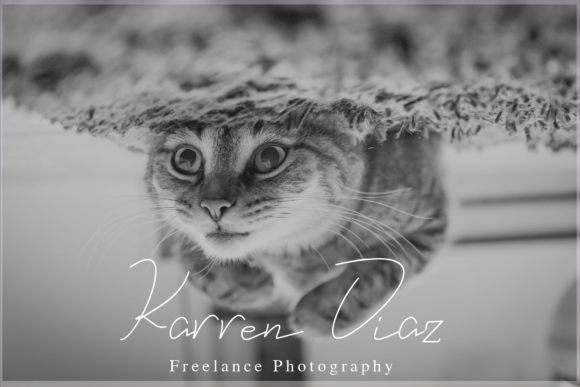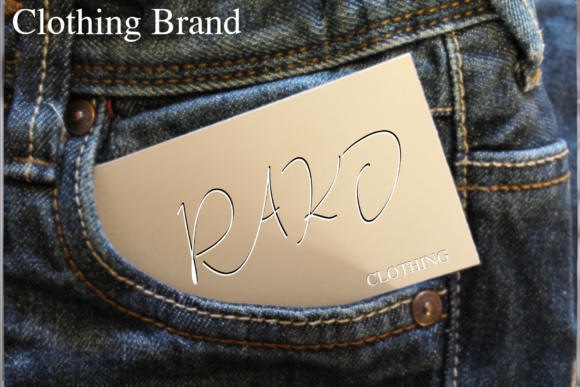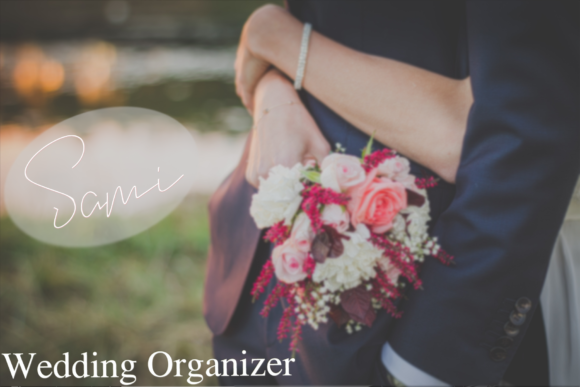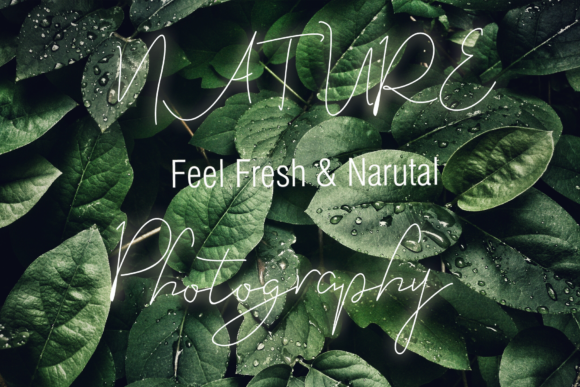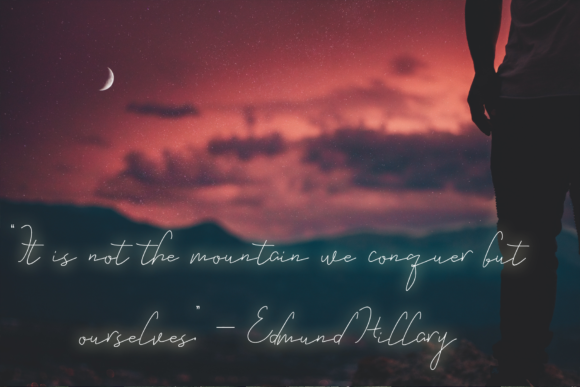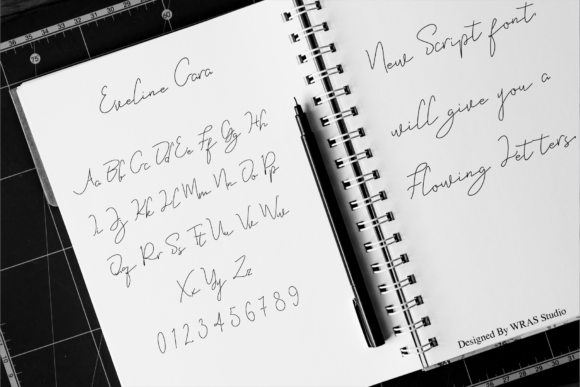
Eveline Cara Font: Elevate Your Designs with Elegant Handwritten Style
Are you tired of using the same old fonts in your designs? Do you want to add a touch of elegance and sophistication to your projects? Look no further than the Eveline Cara Font. This beautiful handwritten font is perfect for designers and crafters who want to add a natural and personal touch to their work.
What is Eveline Cara Font?
The Eveline Cara Font is an elegant handwritten font that features flowing letters with great readability. It’s designed to mimic the look and feel of handwritten script, making it perfect for adding a personal touch to your designs. Whether you’re working on a logo, branding project, or craft project, this font is sure to impress.
Key Features of Eveline Cara Font
- Elegant Handwritten Style: The Eveline Cara Font features a beautiful, elegant handwritten style that’s perfect for adding a touch of sophistication to your designs.
- Flowing Letters: The font features flowing letters that are easy to read and understand, making it perfect for use in a variety of design projects.
- Great Readability: The Eveline Cara Font is designed with readability in mind, making it easy to use in a variety of contexts, from logos and branding to crafts and DIY projects.
- Natural Touch: The font’s handwritten style gives it a natural, personal feel that’s perfect for designers and crafters who want to add a touch of warmth to their projects.
Uses for Eveline Cara Font
The Eveline Cara Font is a versatile font that can be used in a variety of design projects, including:
- Logo Design: The font’s elegant handwritten style makes it perfect for use in logo design, where it’s sure to make a lasting impression.
- Branding: The Eveline Cara Font is also great for use in branding projects, where it can help to add a touch of sophistication and elegance to your brand’s identity.
- Crafts and DIY Projects: The font’s natural, personal feel makes it perfect for use in crafts and DIY projects, such as handmade cards, gift tags, and other paper crafts.
- Stationery and Invitations: The Eveline Cara Font is also great for use in stationery and invitation design, where it can add a touch of elegance and sophistication to your designs.
Why Choose Eveline Cara Font?
There are many fonts to choose from, but the Eveline Cara Font stands out for its unique combination of elegance, readability, and versatility. Here are just a few reasons why you should consider choosing this font for your next design project:
- Unique Style: The Eveline Cara Font features a unique and elegant handwritten style that’s sure to set your designs apart from the crowd.
- Easy to Read: The font’s great readability makes it easy to use in a variety of contexts, from logos and branding to crafts and DIY projects.
- Versatile: The Eveline Cara Font is a versatile font that can be used in a wide range of design projects, from logo design and branding to crafts and DIY projects.
If you’re looking for a font that can add a touch of elegance and sophistication to your designs, look no further than the Eveline Cara Font. This beautiful handwritten font features flowing letters with great readability, making it perfect for use in a variety of design projects. With its unique style, ease of use, and versatility, the Eveline Cara Font is a great choice for designers and crafters who want to take their designs to the next level.